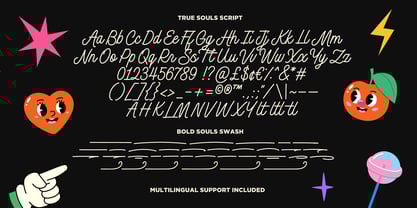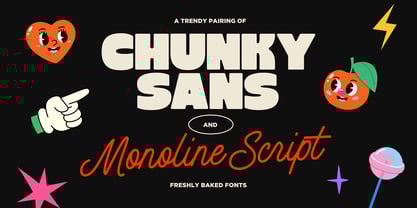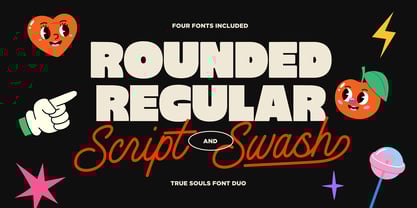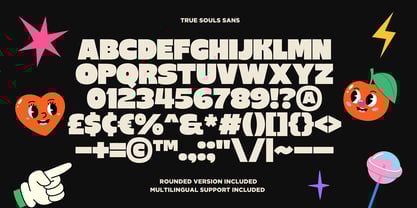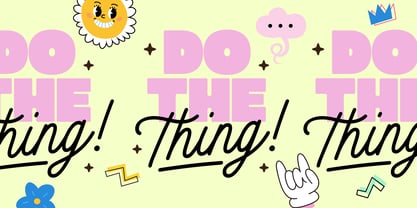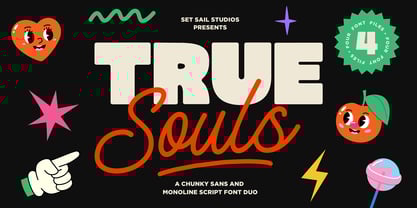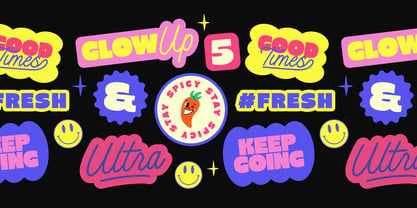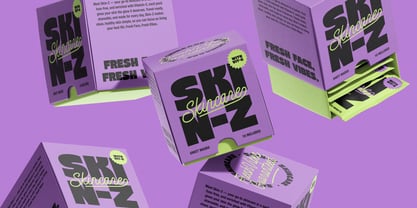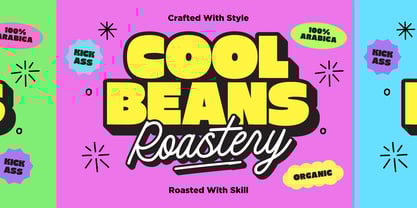
True Souls
by Set Sail Studios
The True Souls Font Family was designed by Sam Parrett and published by Set Sail Studios. True Souls contains 4 styles and family package options. More about this family
Introducing the True Souls Font Duo! This trendy pairing of fonts has been carefully designed to perfectly compliment one another, featuring a Super Chunky Sans Font (with the option of sharp or rounded edges), and a Smooth Monoline Script Font (with 35 bonus underline swashes). The strong sans does the heavy lifting while the flowing script gives it the extra flair, both bringing their own unique style to the party. Here's a closer look at the family; 1. True Souls Sans • An extra chunky sans font, containing uppercase only characters, plus numerals, punctuation, and language support. 2. True Souls Sans Round • An alternative option of the Regular Sans font, with all edges rounded for a softer, friendlier vibe. 3. True Souls Script • A super smooth, monoline script font with cursive, connected characters. Contains uppercase, lowercase, numerals, punctuation, plus 10 alternate uppercase characters (accessible by turning on 'Stylistic Alternates' or via the Glyphs panel). 4. True Souls Swash • Add a little extra customisation to your 'True Souls Script' text! Simply install this as it's own separate font, and type any character (A-Z, g-o) to generate 1 of 35 underline swashes. Swashes A-F are designed to be typed at the end of your 'True Souls Script' text to join onto your final letter. Swashes G-Z and g-o are designed to be typed on a new layer, and positioned underneath your 'True Souls Script' text. Language Support; English, French, Italian, Spanish, Portuguese, German, Swedish, Norwegian, Danish, Dutch, Finnish, Indonesian, Malay, Hungarian, Polish, Croatian, Turkish, Romanian, Czech, Latvian, Lithuanian, Slovak, Slovenian.